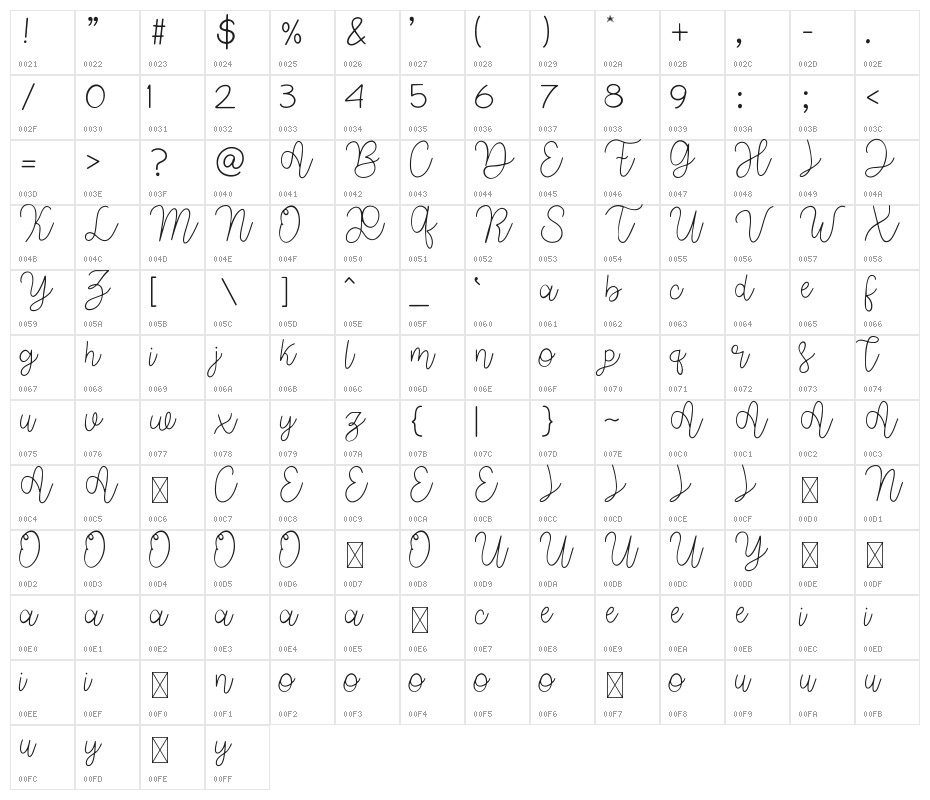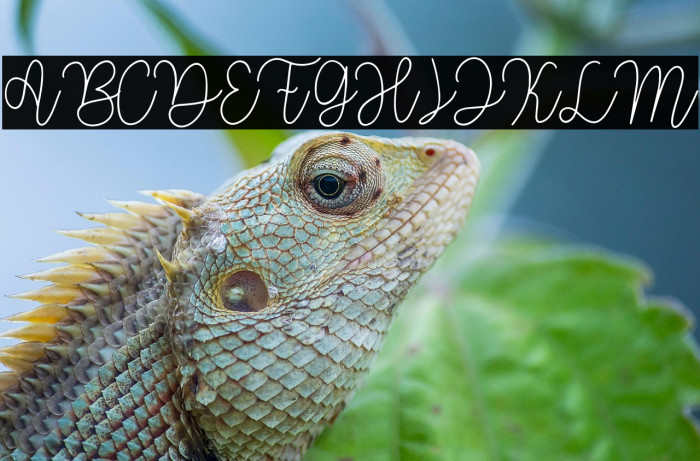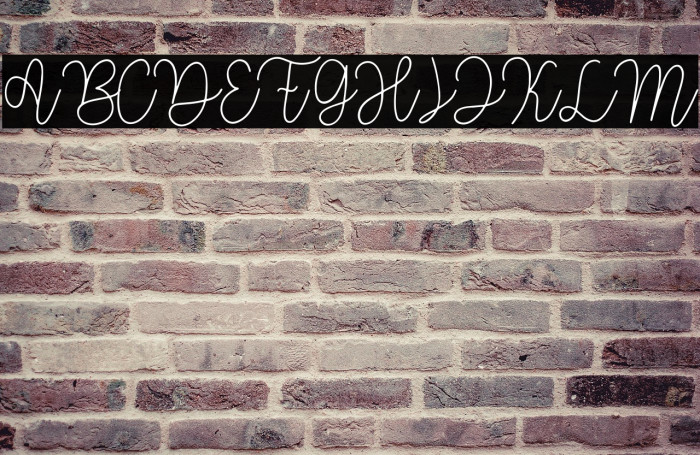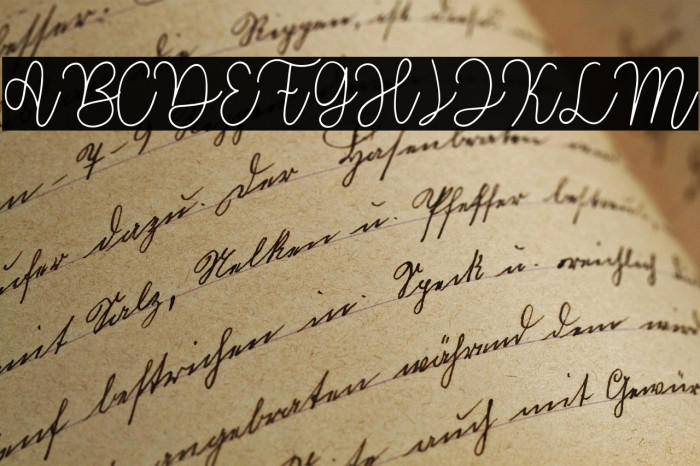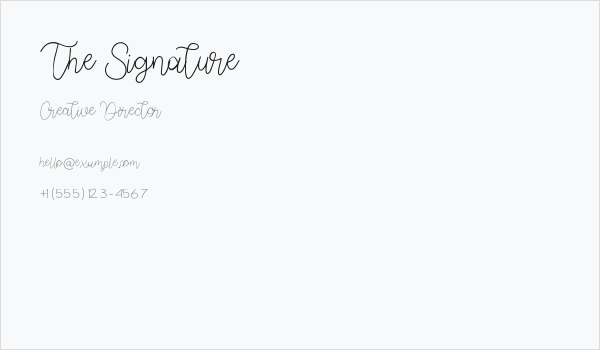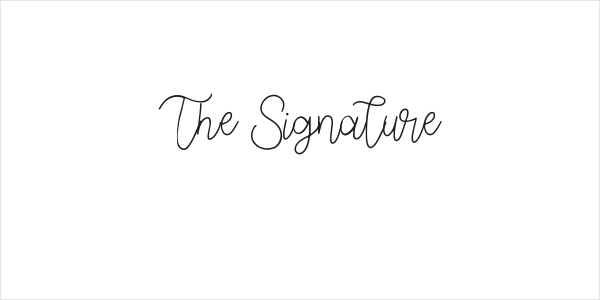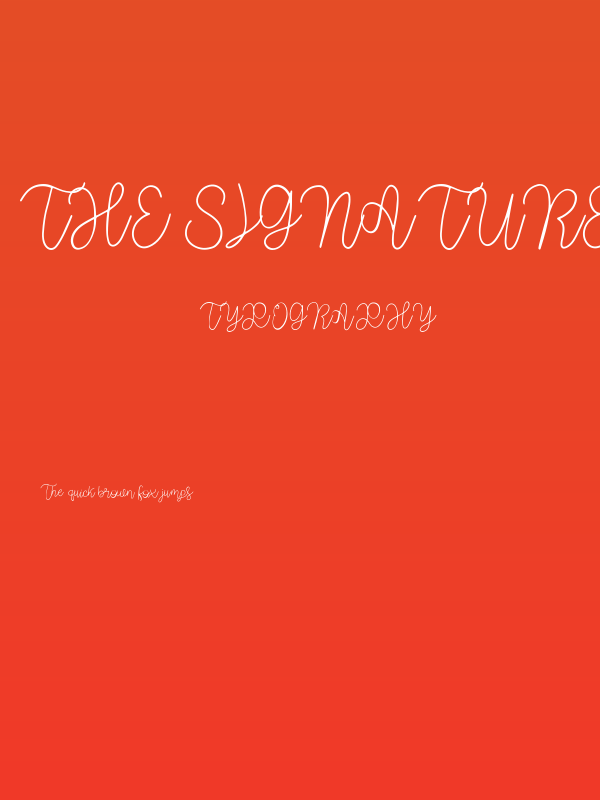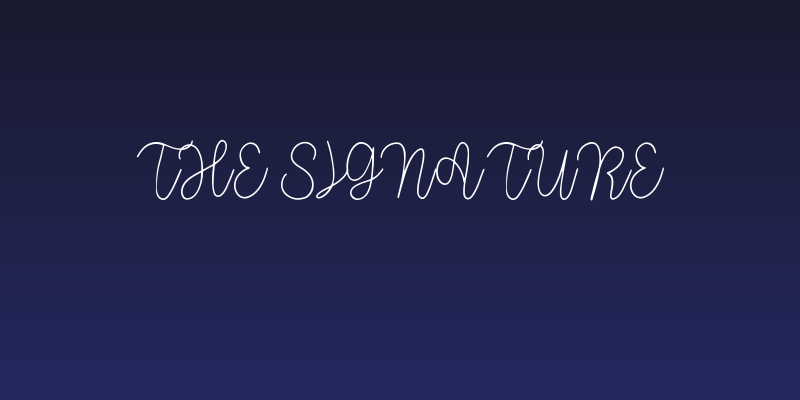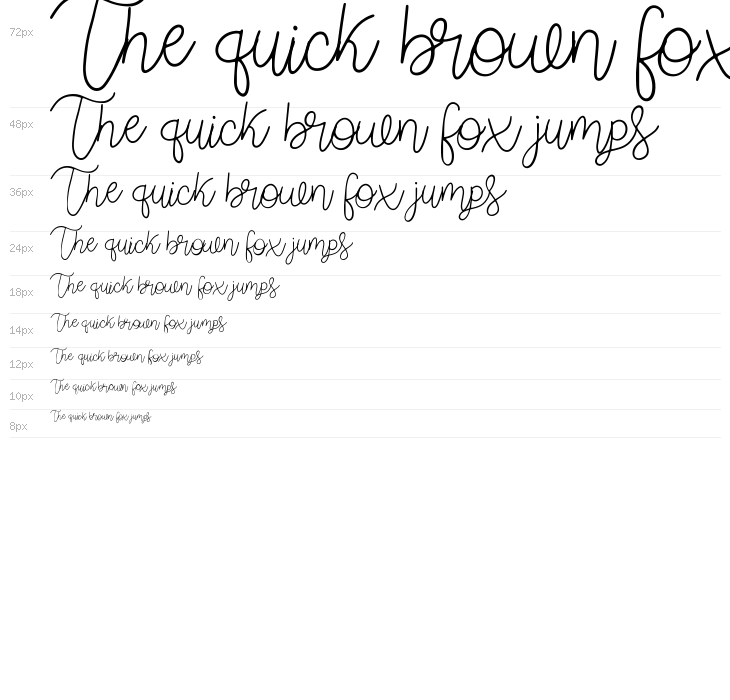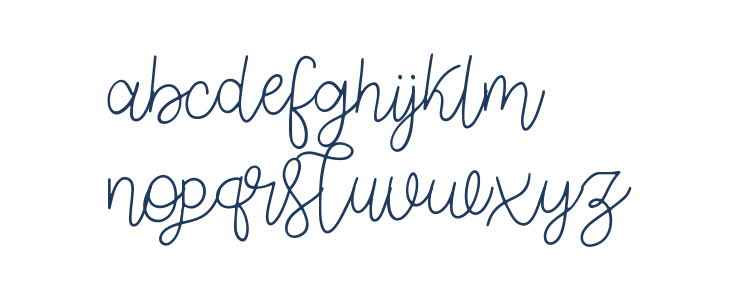
The Signature Font
The Signature Description
This font features a flowing, cursive style that mimics the elegance of handwritten script. The characters are connected, creating a seamless and fluid appearance. The uppercase letters are slightly more elaborate, with loops and swirls that add a touch of sophistication. The lowercase letters maintain a consistent flow, enhancing readability while preserving the artistic flair. Numbers and special characters are designed to match the script's overall aesthetic, ensuring a cohesive look across all text. This font is ideal for projects that require a personal, elegant touch, such as invitations, greeting cards, and branding materials.
Overall StyleElegant, Handwritten
Use CaseLogos, Invitations, Greeting Cards
Proposed ProjectsIdeal for invitations, greeting cards, branding, and personal projects.